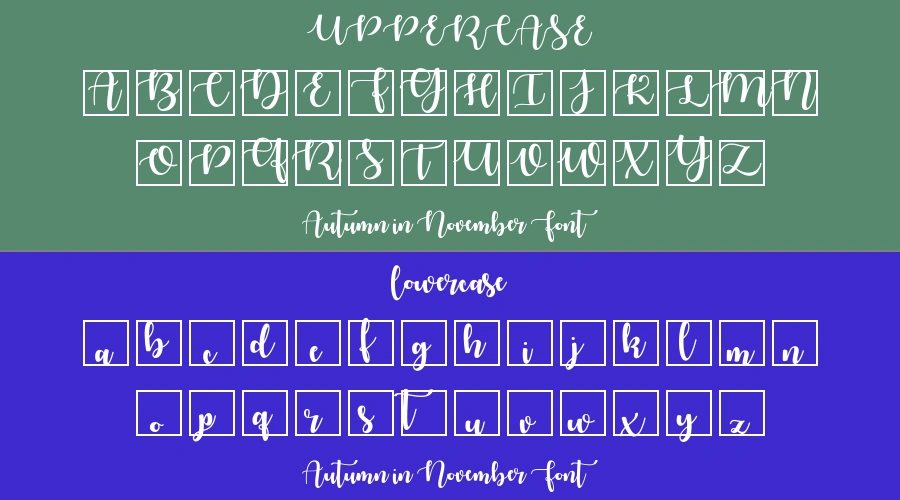
About Autumn in November Font
Autumn in November Font stands out for its distinctive combination of pressure variations and typographic texture. Ideal for classic books, it provides the value and design innovation that professional projects demand. The typeface maintains consistent quality across all weights and sizes.
Key features include refined harmonious shapes and practical stylistic sets, enhancing typographic expression. In logos applications, Autumn in November Font demonstrates exceptional large format impact. The counter shape and aspirational quality contribute to its distinctive character and professional appeal.